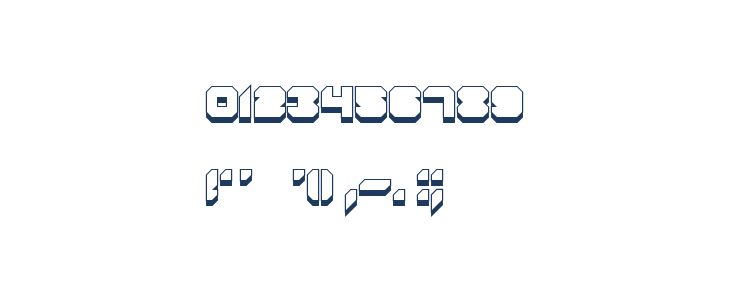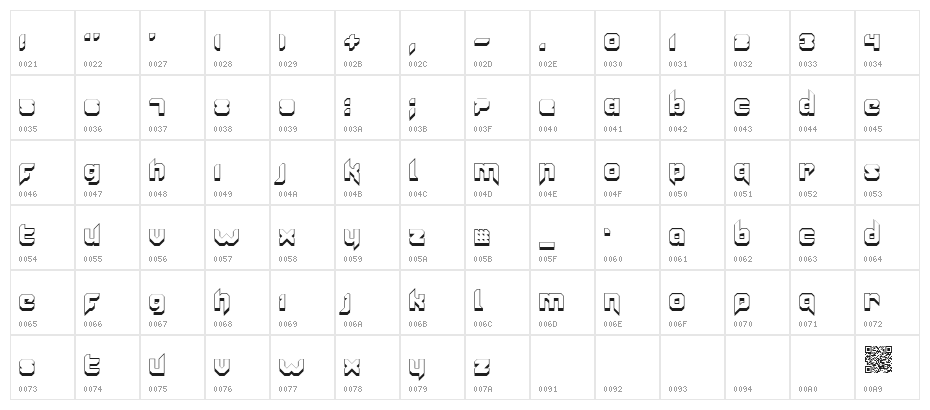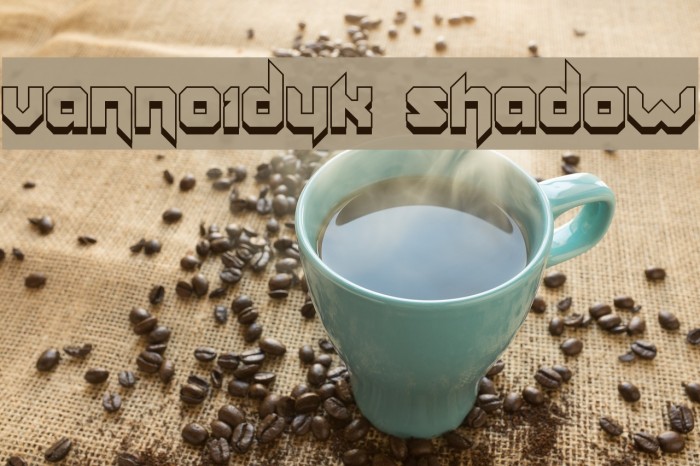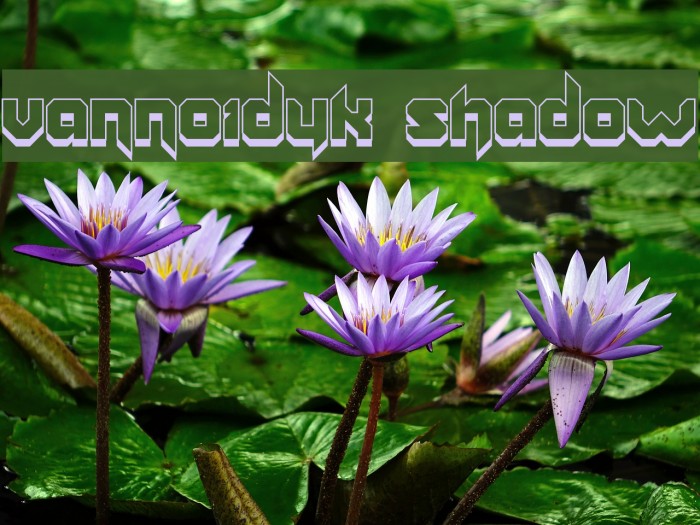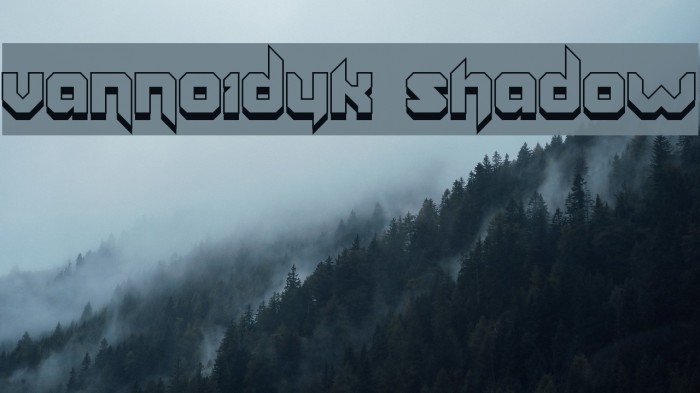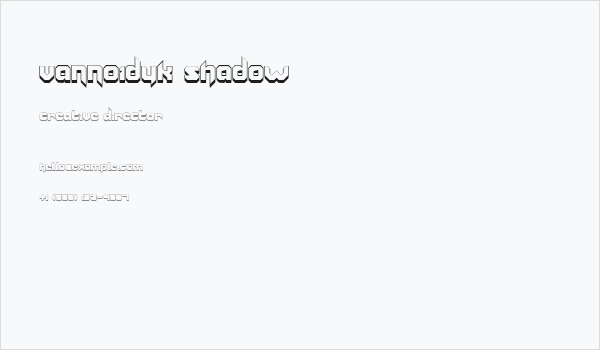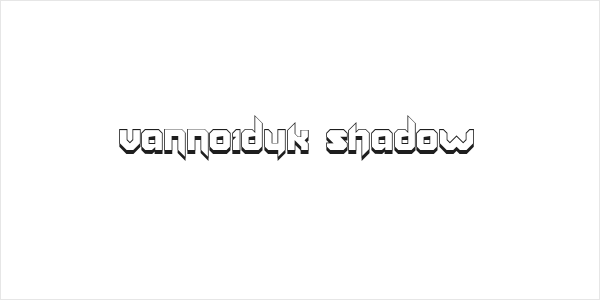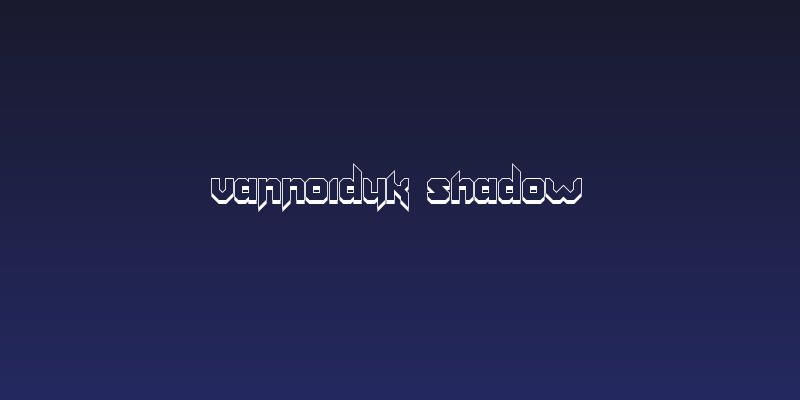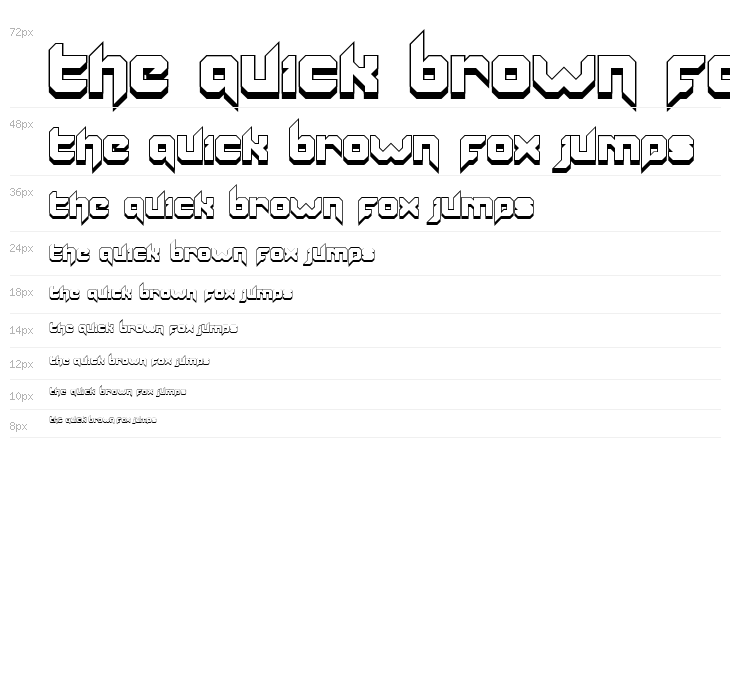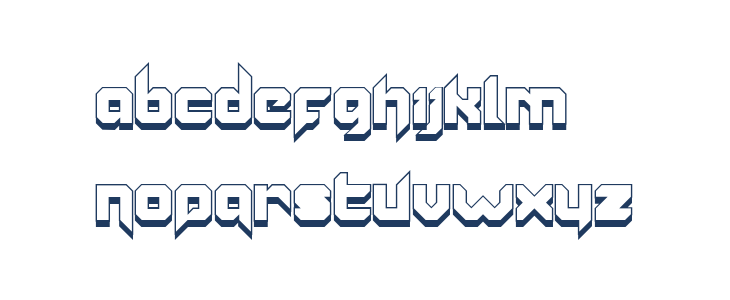
Vannoidyk Shadow Font
Vannoidyk Shadow Description
This font features a bold, geometric design with a distinct shadow effect that gives it a three-dimensional appearance. The characters are angular and sharp, with a futuristic and edgy style. The shadow adds depth and makes the letters stand out, creating a striking visual impact. The uppercase and lowercase letters maintain a consistent style, with uniform stroke widths and a solid, blocky appearance. The numbers and special characters follow the same design principles, ensuring a cohesive look across all elements.
| Proposed Projects | Ideal for video game titles, sci-fi posters, and edgy branding projects. |